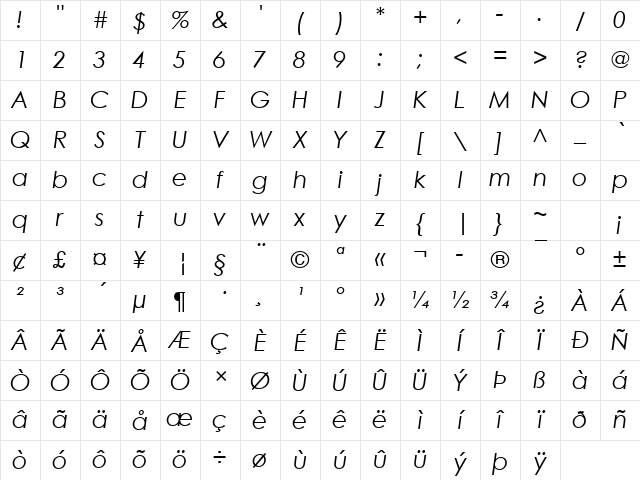
Century Gothic Italic
Foundry: Monotype Typography, Inc.
Designer: Monotype Type Drawing Office
Design Context for Century Gothic
Century Gothic takes a clean, functional approach - its unadorned letterforms prioritise legibility and work reliably across screen and print environments. The slanted form adds forward momentum and visual energy.
Font Pairing: Works well alongside a characterful serif or display font that can carry the expressive load while Century Gothic handles the functional copy.
Pro Tip: Use Century Gothic for UI labels, navigation, and short-form body copy where clean legibility is the priority.
Who designed the Century Gothic Italic font?